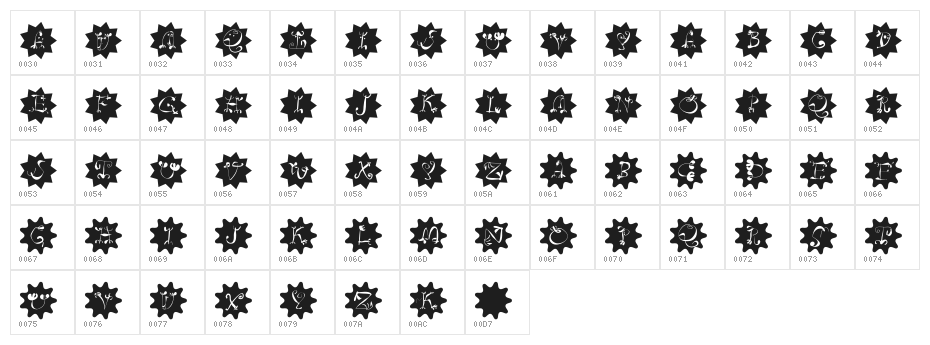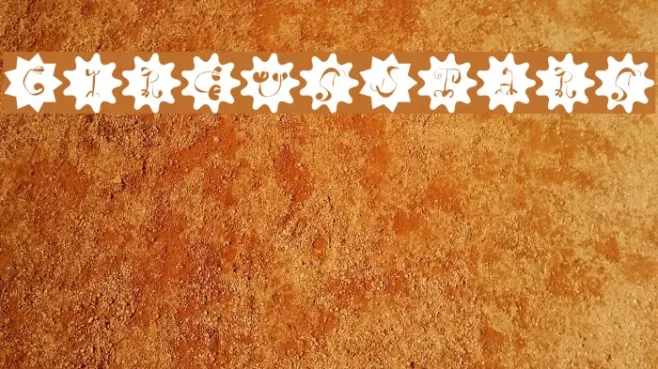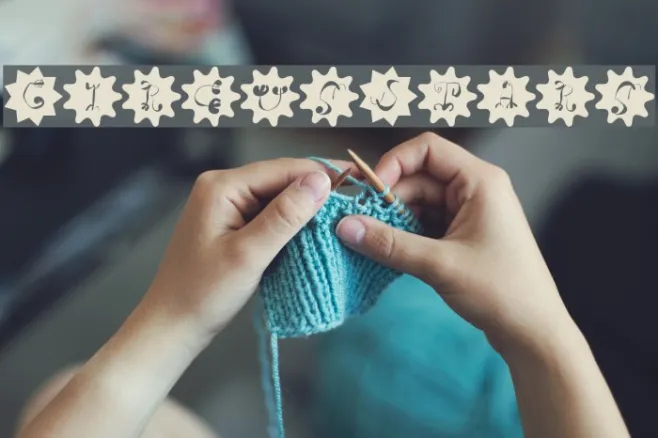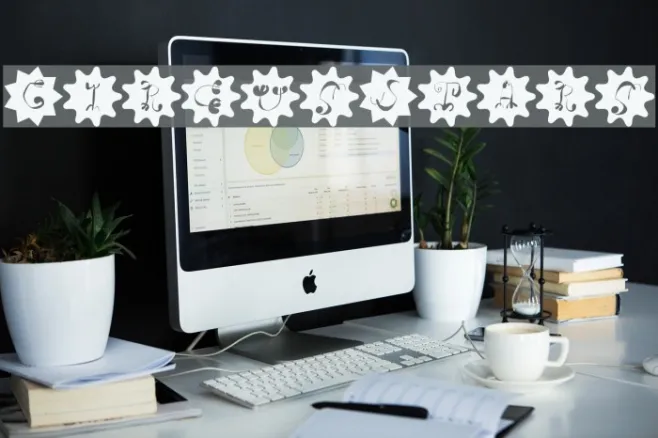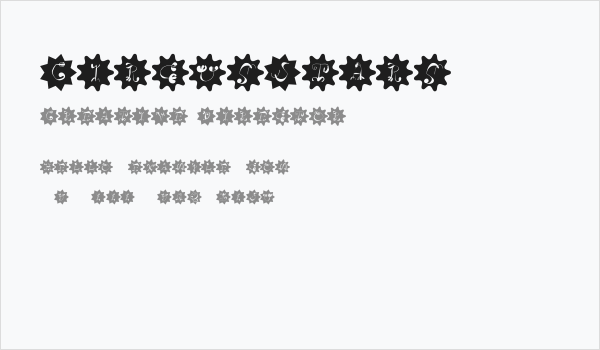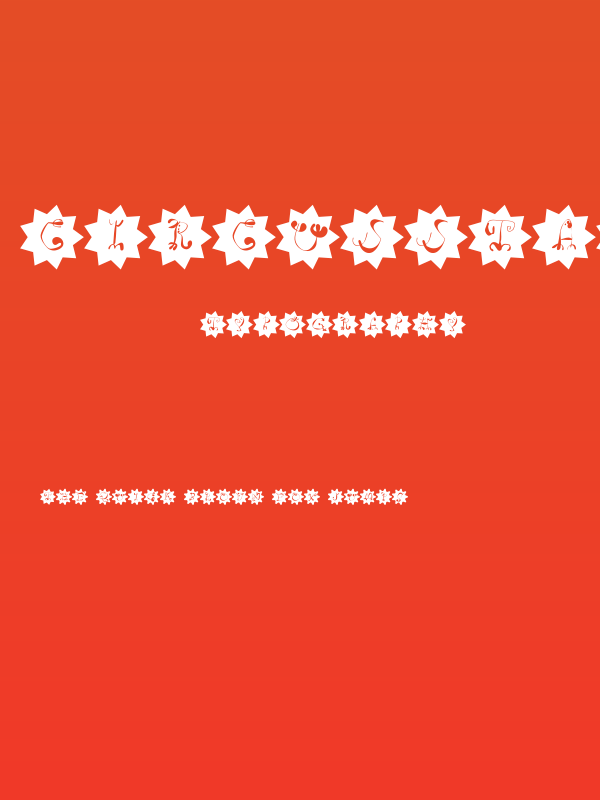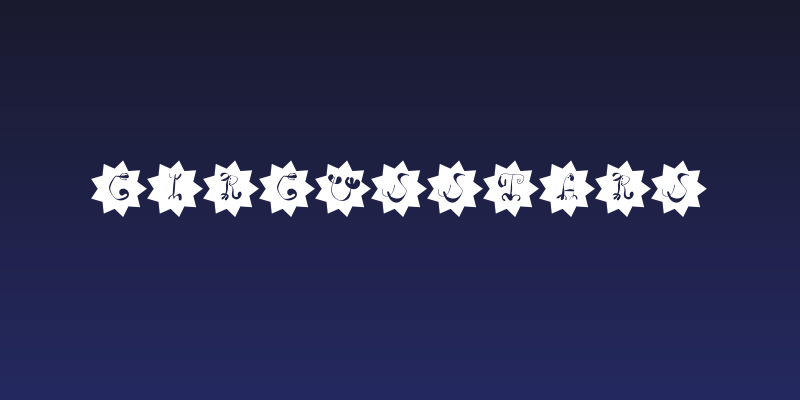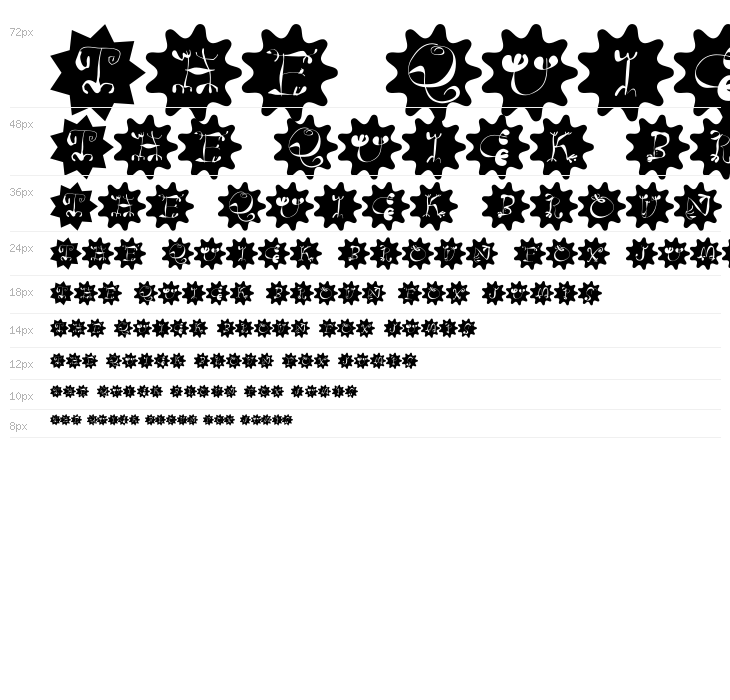
CircusStars Font
CircusStars Description
This font features a playful and whimsical design, with each character enclosed in a starburst shape. The letters are stylized with unique, decorative elements that give them a circus-like appearance. The bold outlines and intricate details make it stand out, perfect for eye-catching designs. The font includes both uppercase and lowercase letters, numbers, and a selection of special characters, all maintaining the same starburst motif. Its distinct style is reminiscent of vintage circus posters, combining nostalgia with a modern twist.
| Proposed Projects | Ideal for circus-themed posters, children's book covers, playful branding, and event invitations. |